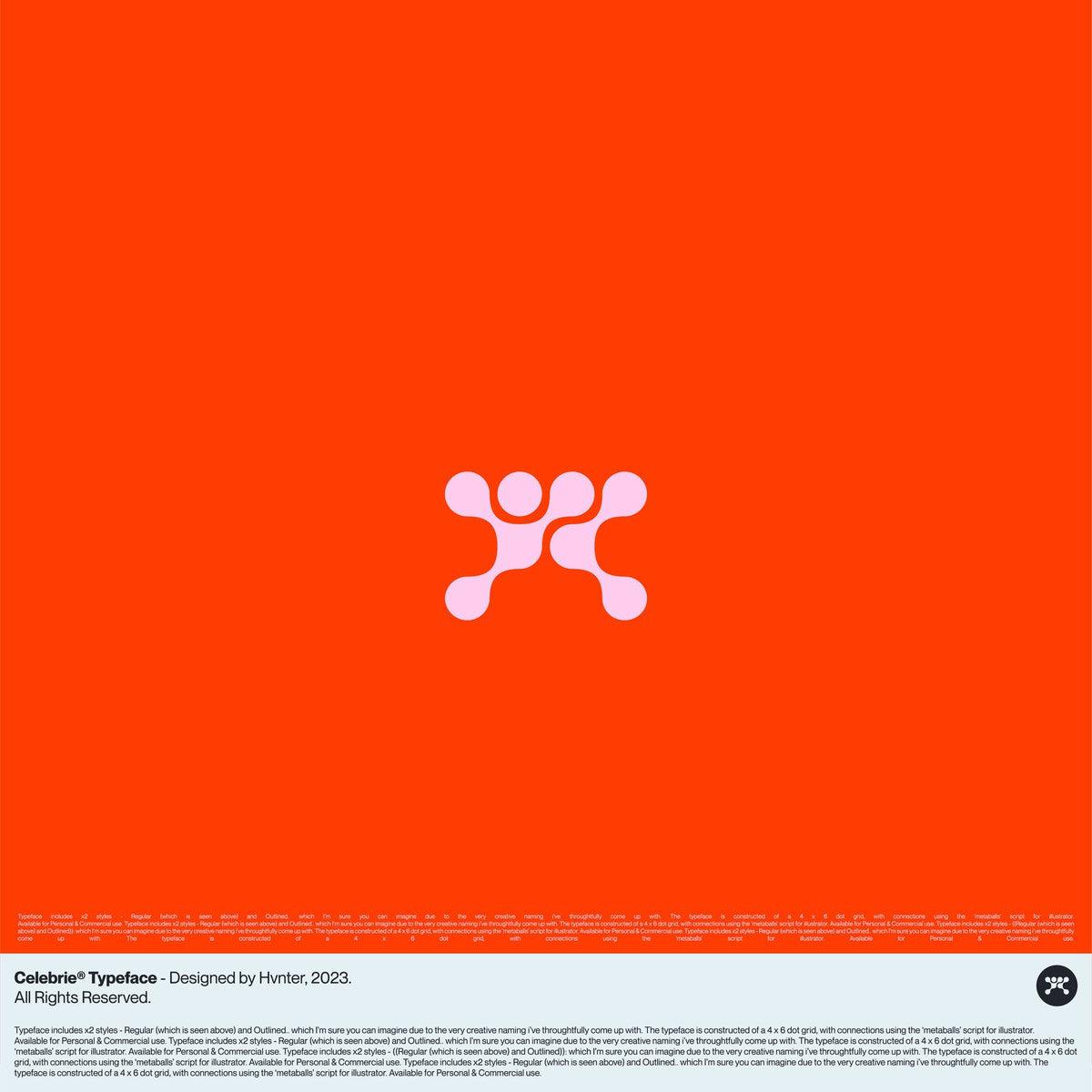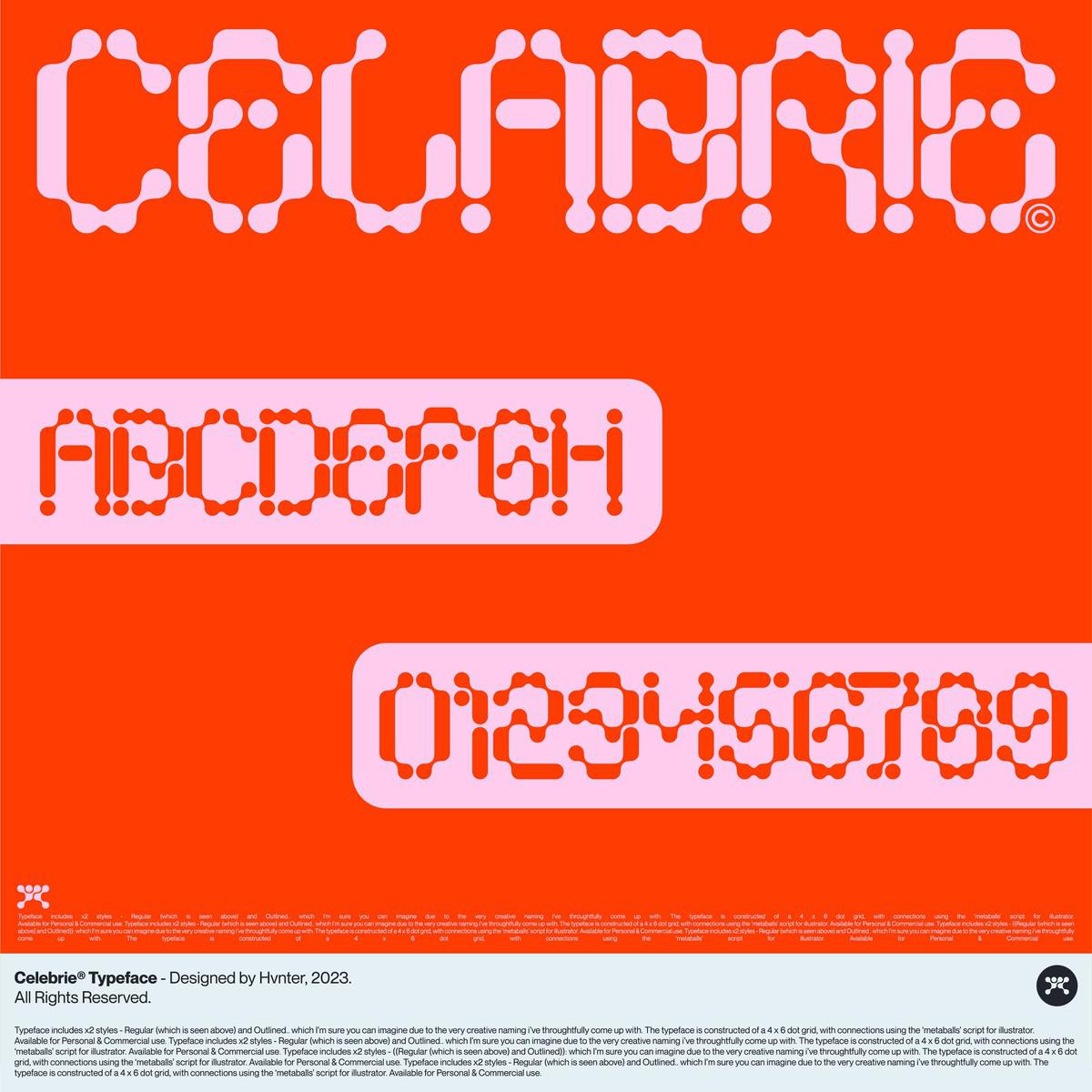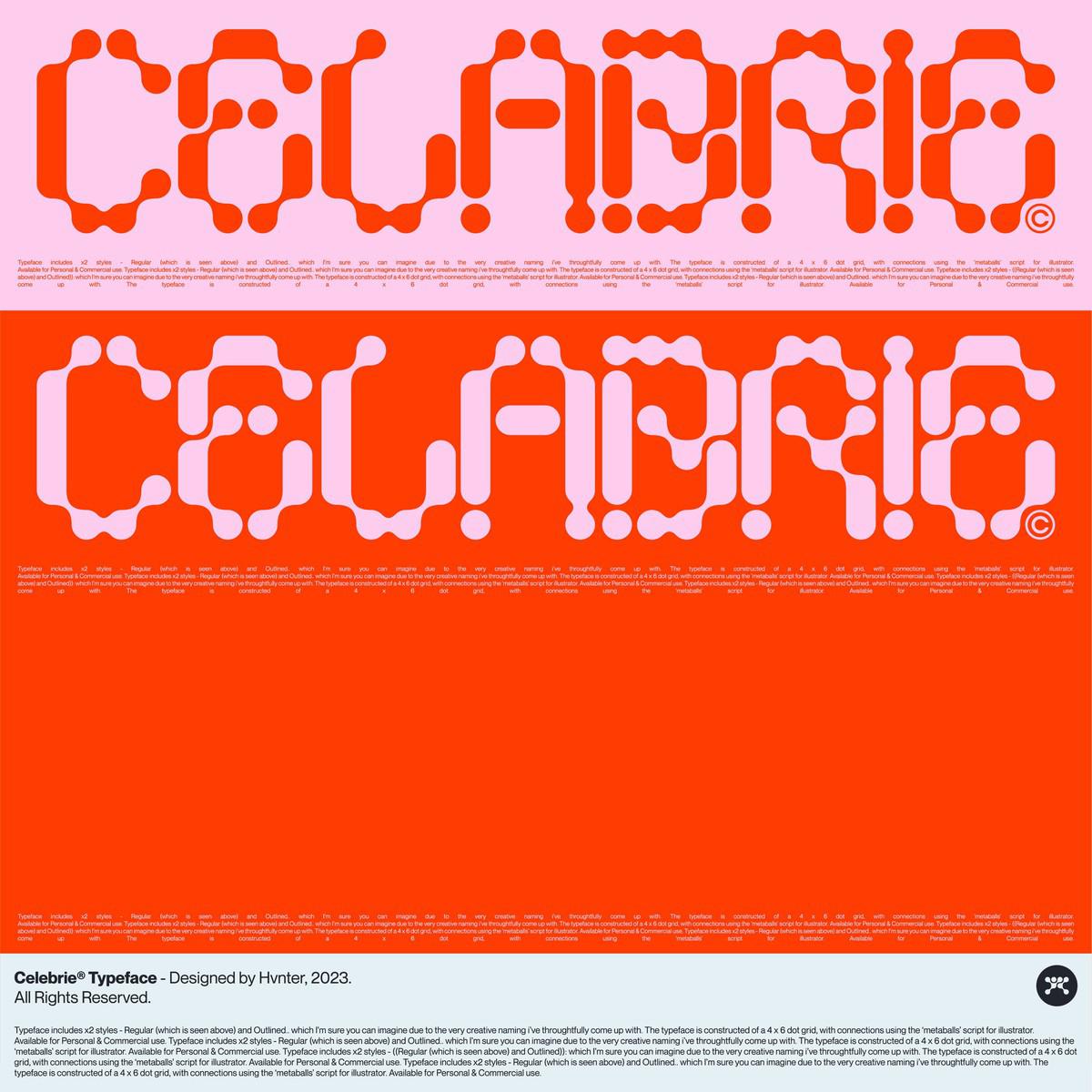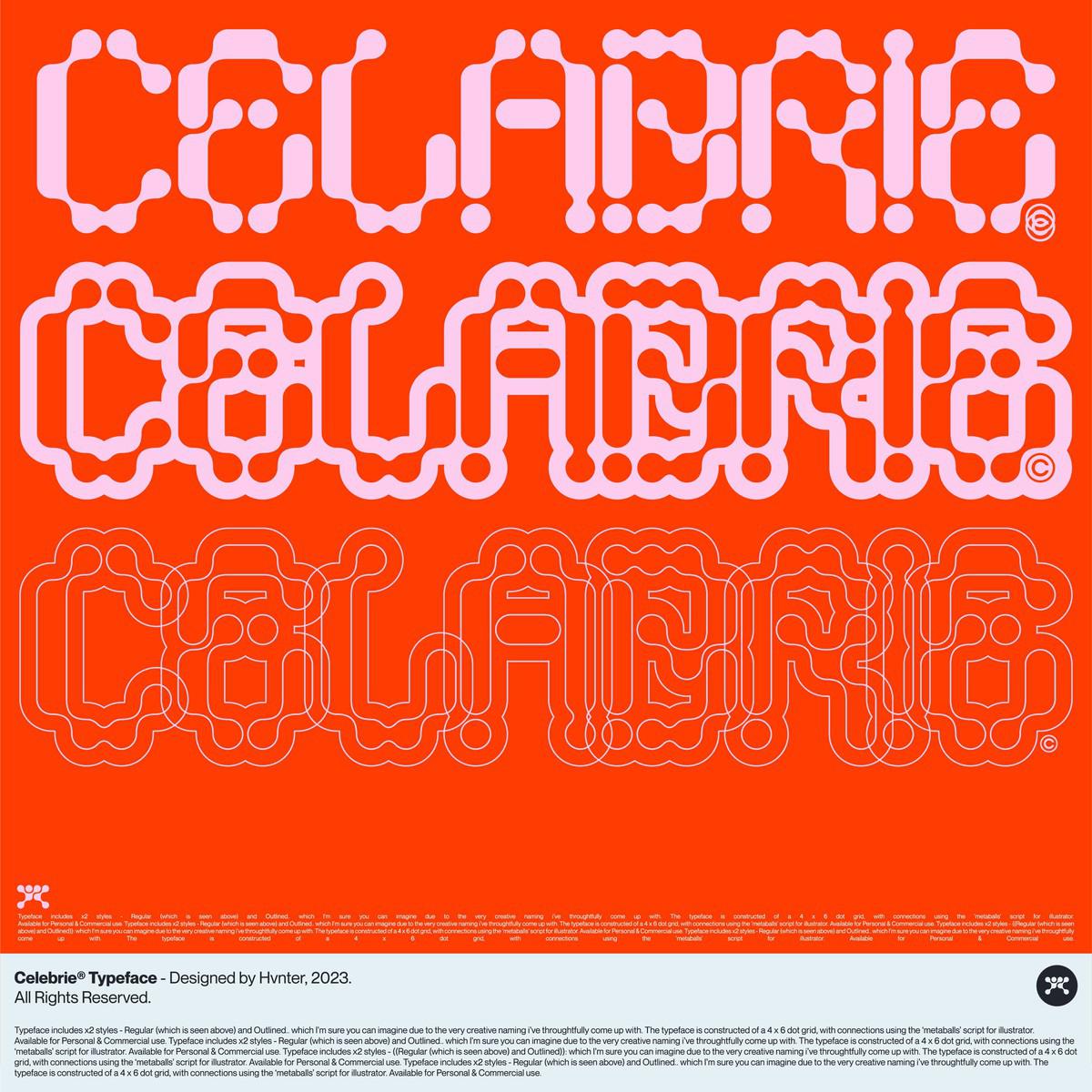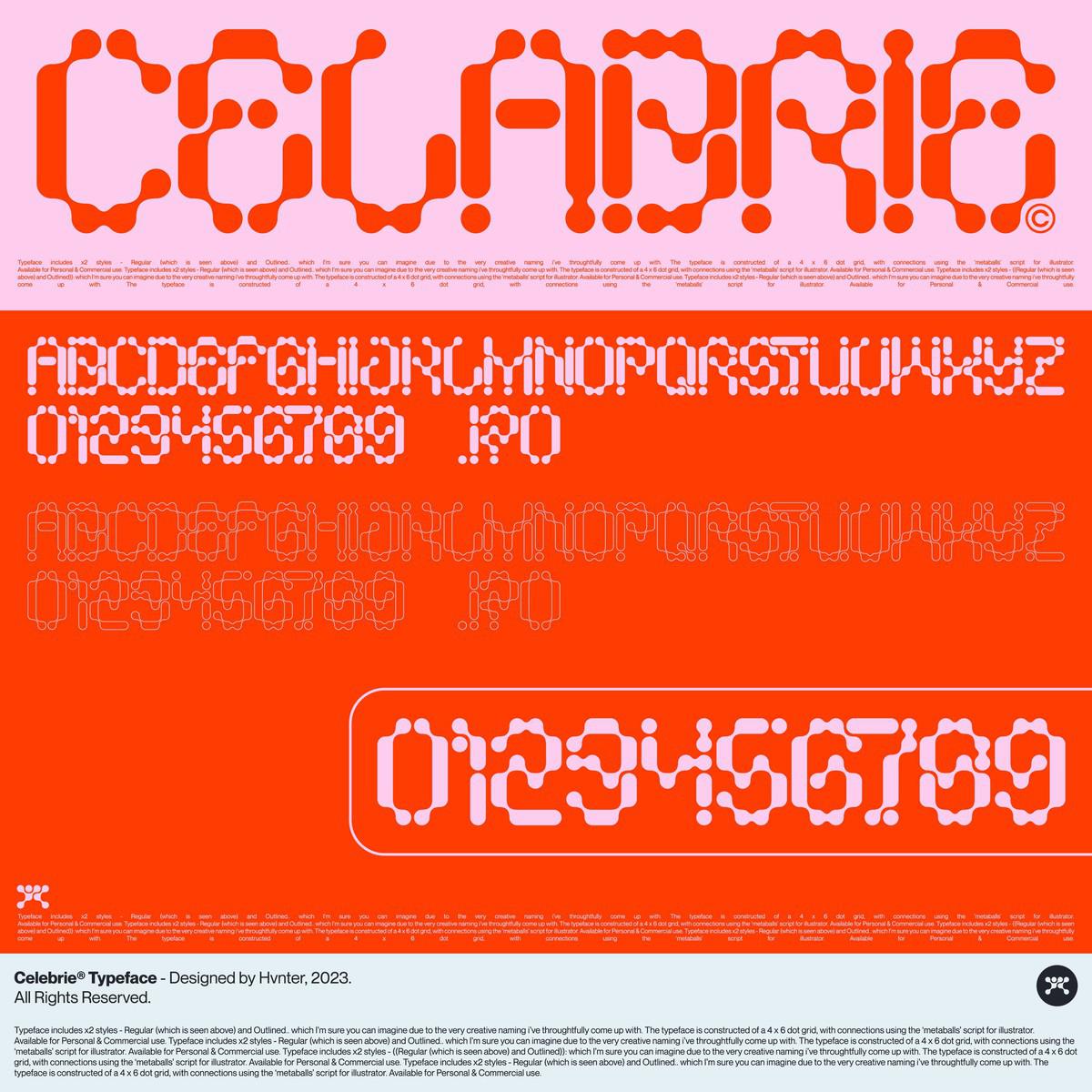
Celebrie Typeface
The Celebrie Typeface is a font product that includes two styles, covering A-Z, 0-9, and basic symbols. It is tagged under grunge, hvnter, streetwear, fonts, staff picks, y2k fonts, display fonts, cool fonts, and pixel fonts. Compatibility details are not specified.
Ideal for grunge and streetwear-inspired graphic design. Perfect for posters, branding, and album covers, ensuring a unique and edgy visual identity.